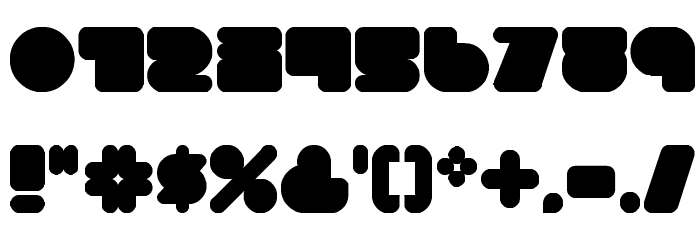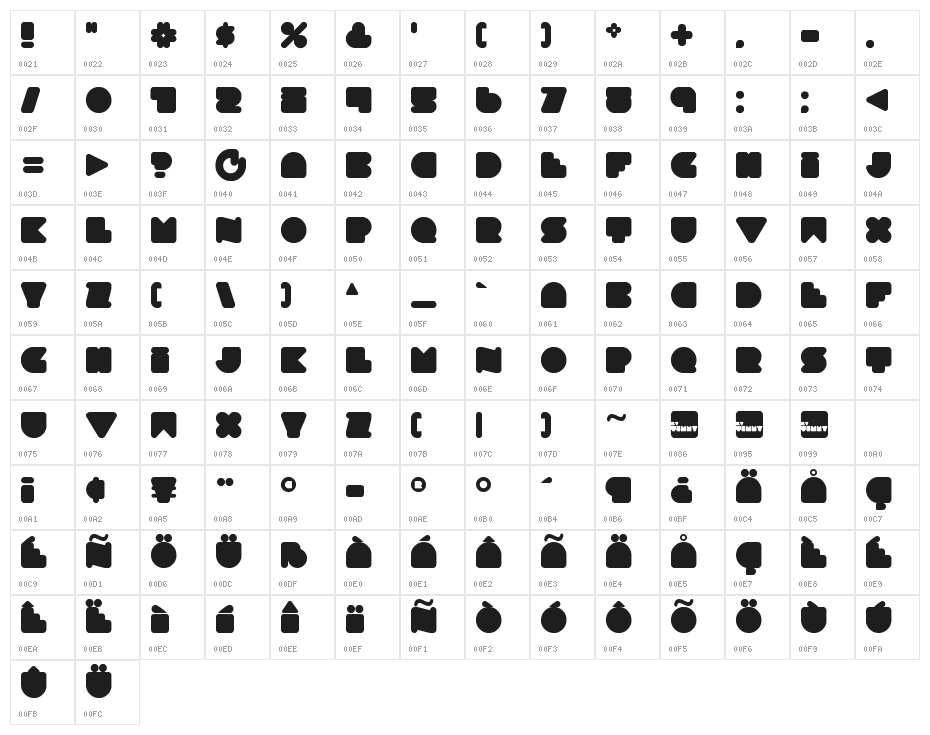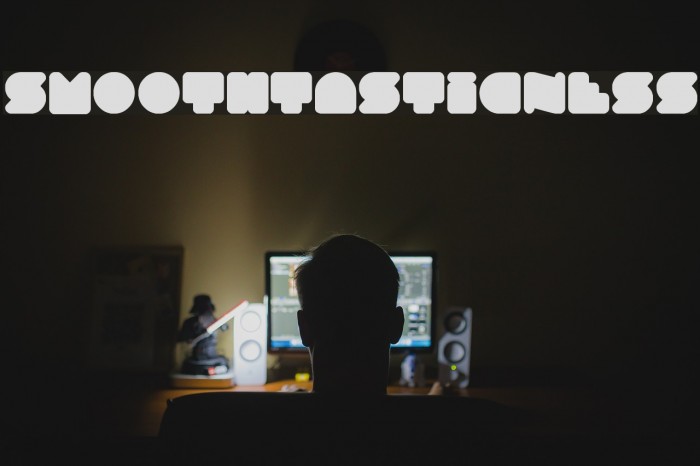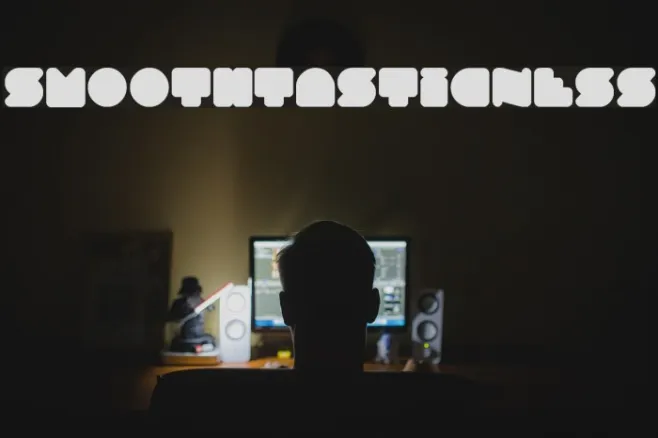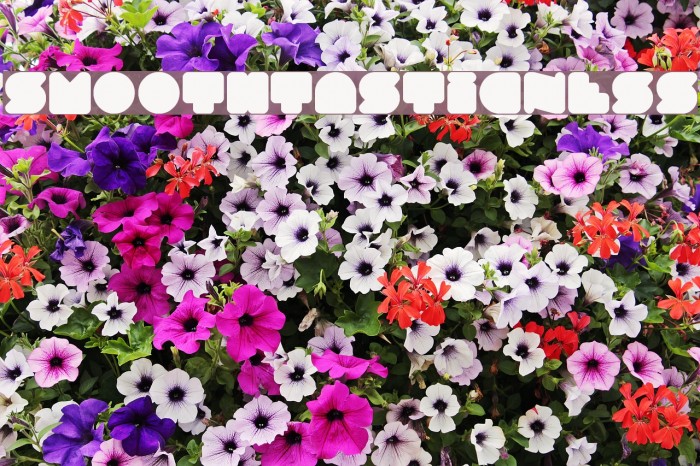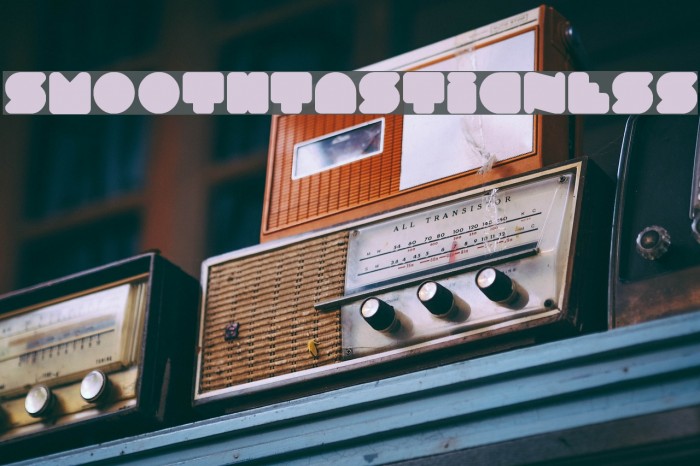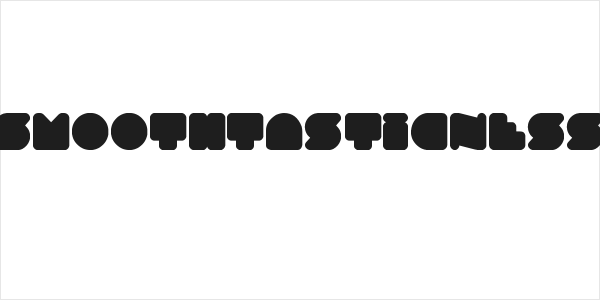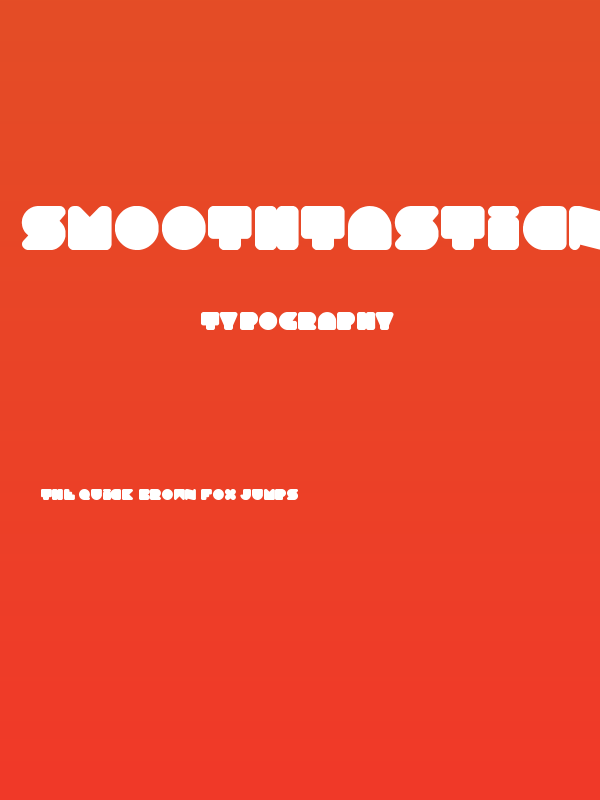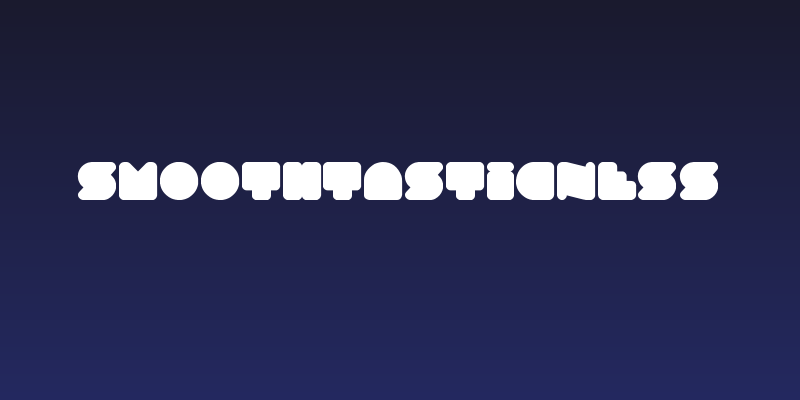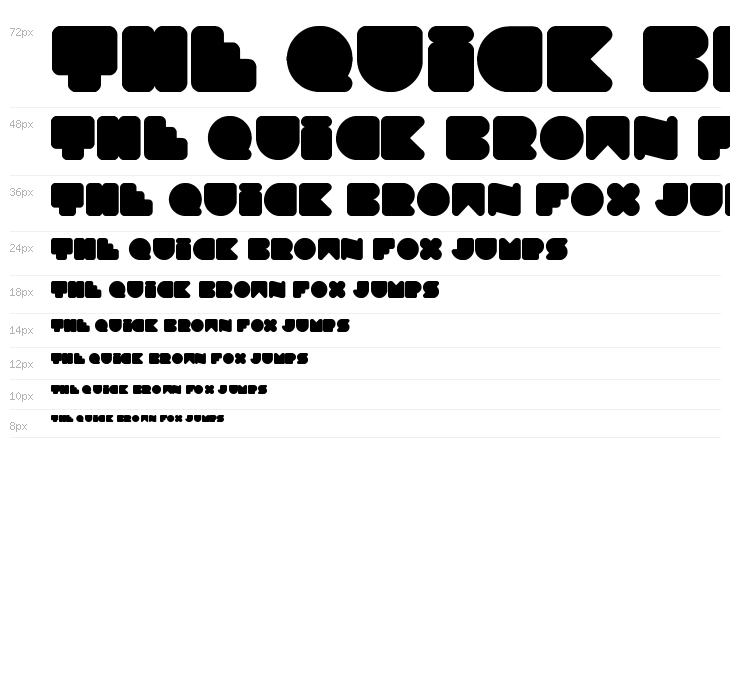
Smoothtasticness Font
Smoothtasticness Description
This font features a bold, geometric style with rounded edges and a playful, modern aesthetic. The characters are uniformly thick, creating a strong visual impact. The rounded forms give it a friendly and approachable feel, while the consistent stroke width adds to its boldness. The font is highly legible at larger sizes, making it suitable for attention-grabbing headlines or display purposes. Its unique style is characterized by smooth curves and a lack of sharp angles, contributing to its overall softness and contemporary appeal.
| Proposed Projects | Ideal for branding, posters, headlines, and any project needing a bold, modern touch. |